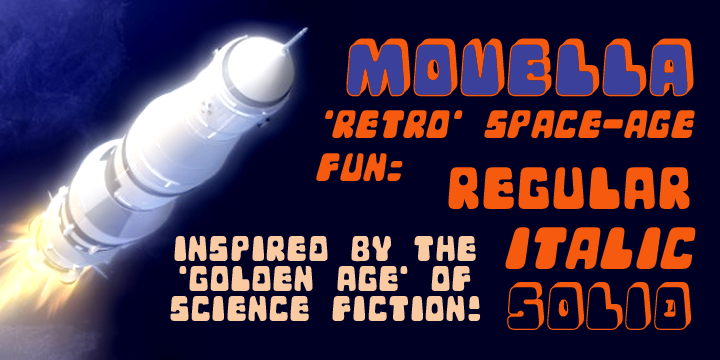
Movella is a retro and kids font family. This typeface has three styles and was published by Greater Albion Typefounders.
Remember those 1970s science fiction dramas which had such charming ‘futuristic’ sets and backdrops? Remember the intriguing ‘future’ lettering and signage the set designers would devise-often coupled with interesting ‘futuristic’ spellings? Movella is a family of three typefaces inspired by that design ethos. The three faces- regular, italic and the 3d solid form - are all capitals faces which combine a feeling of ‘retro-futuristic’ design with easy legibility. Take your next project into the age of the Apollo Launches, sci-fi action drama and fun!